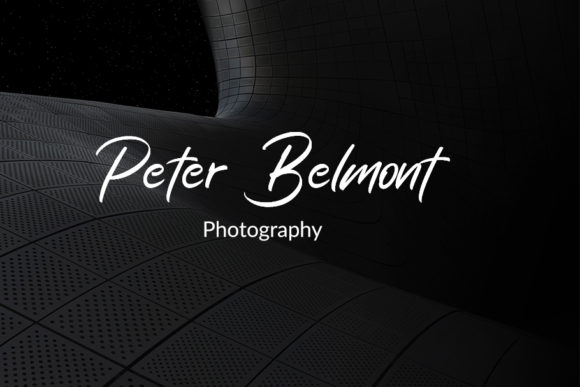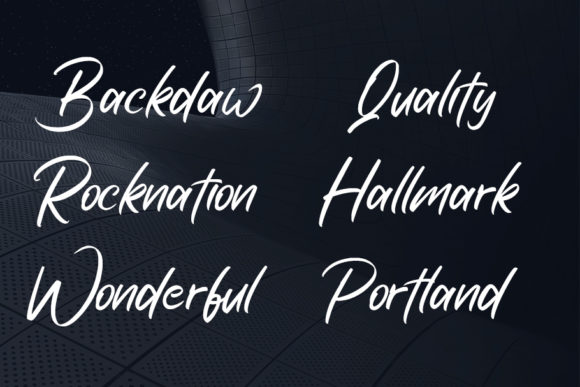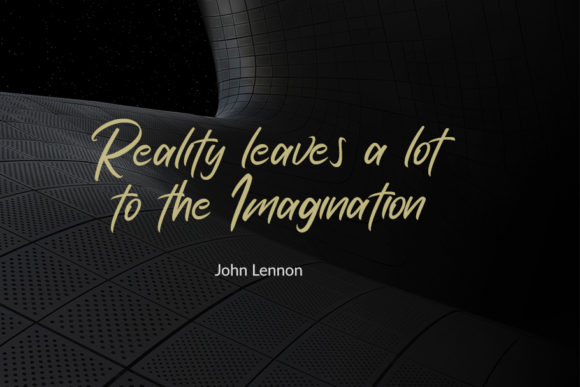
Discover the Elegance of Backdaw Font: Elevate Your Designs with a Timeless Touch
Are you on the hunt for a font that adds a touch of elegance and sophistication to your designs? Look no further than the Backdaw Font. This stunning, flowing handwritten font is characterized by an elegant touch, making it perfect for a wide range of projects. From crafting beautiful wedding invitations to designing eye-catching logos, Backdaw Font is sure to leave a lasting impression.
The Distinctive Style of Backdaw Font
What sets Backdaw Font apart from other fonts is its incredibly distinct and timeless style. The flowing lines and curves of this handwritten font create a sense of movement and fluidity, adding a touch of whimsy and romance to any design. Whether you’re a designer, crafter, or DIY enthusiast, Backdaw Font is sure to capture your heart with its unique charm.
Backdaw Font is incredibly versatile, making it suitable for a wide range of projects. Here are just a few ideas to get you started:
- Wedding Invitations: Create beautiful, one-of-a-kind wedding invitations that set the tone for a romantic and elegant celebration.
- Logos and Branding: Use Backdaw Font to craft a unique and memorable logo that reflects your brand’s personality and style.
- Stationery and Cards: Add a touch of elegance to your stationery and cards with this beautiful handwritten font.
- Signs and Posters: Create eye-catching signs and posters that showcase your message in a stylish and sophisticated way.
Why Choose Backdaw Font?
So, why should you choose Backdaw Font for your next project? Here are just a few reasons:
- Unique and Timeless Style: Backdaw Font boasts a distinctive and timeless style that will set your designs apart from the rest.
- Elegant and Sophisticated: This font exudes elegance and sophistication, making it perfect for projects that require a touch of refinement.
- Easy to Read: Despite its elegant and flowing lines, Backdaw Font is easy to read, making it suitable for both digital and print projects.
- Versatile: Backdaw Font can be used for a wide range of projects, from wedding invitations to logos and branding.
Tips for Using Backdaw Font
To get the most out of Backdaw Font, here are a few tips to keep in mind:
- Pair with Other Fonts: Experiment with pairing Backdaw Font with other fonts to create a unique and visually appealing combination.
- Adjust the Size: Play around with different font sizes to add emphasis and create visual hierarchy in your designs.
- Use it Sparingly: While Backdaw Font is beautiful, it can be overwhelming if used excessively. Use it sparingly to create a lasting impact.
| Font Name | Backdaw Font |
| Author | Hustletter |
In conclusion, Backdaw Font is a stunning, flowing handwritten font that is sure to elevate your designs with its elegant and timeless touch. With its unique style, versatility, and ease of use, it’s perfect for designers, crafters, and DIY enthusiasts alike. So why wait? Fall in love with Backdaw Font and use it to create spectacular designs that leave a lasting impression.
Whether you’re looking to create beautiful wedding invitations, craft a unique logo, or simply add a touch of elegance to your stationery, Backdaw Font is the perfect choice. So go ahead, get creative, and discover the magic of Backdaw Font for yourself.